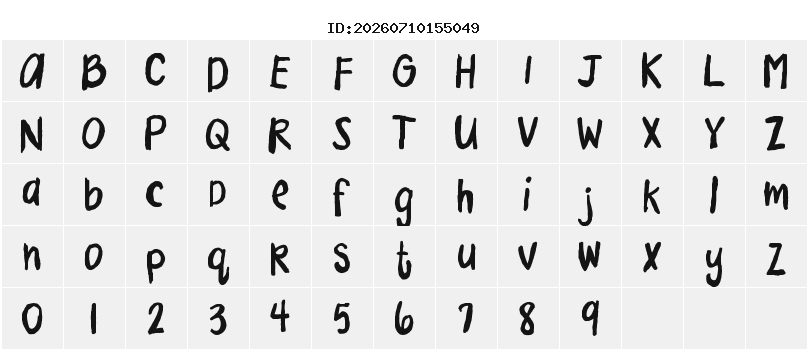
• Font Name: FB Almost Paradise
• Manufacturer: Font Boutique
About FB Almost Paradise.ttf
FB Almost Paradise.ttf is a modern, elegant sans-serif font designed for ultimate readability and visual harmony. Perfect for branding, headlines, web design, and print materials.